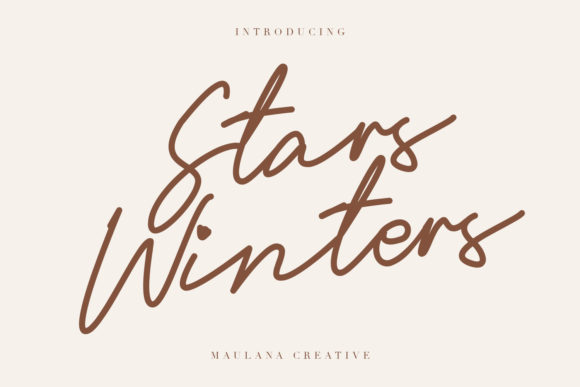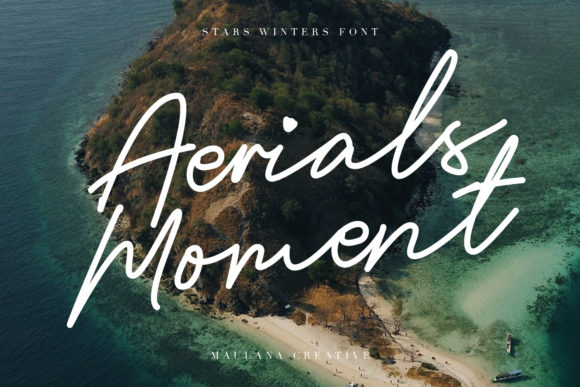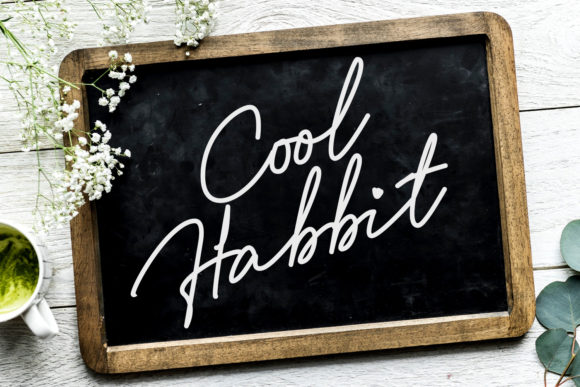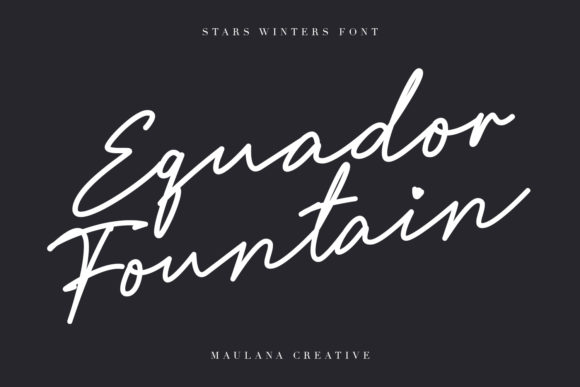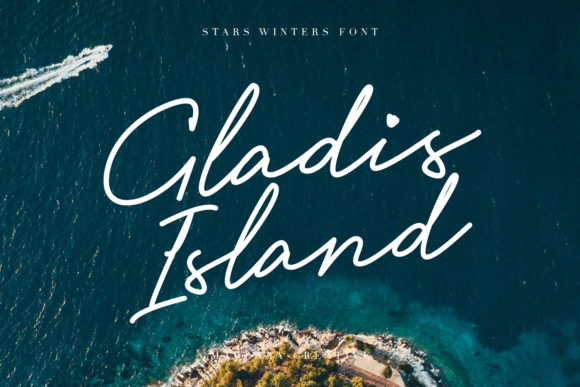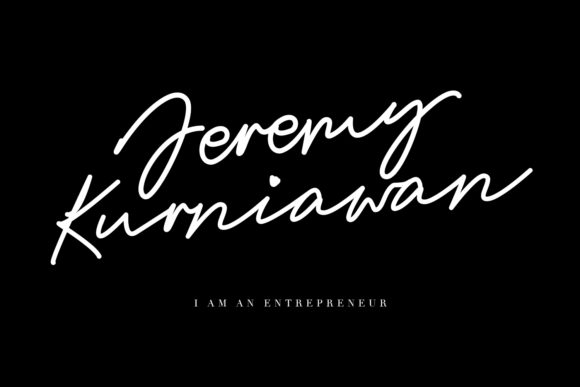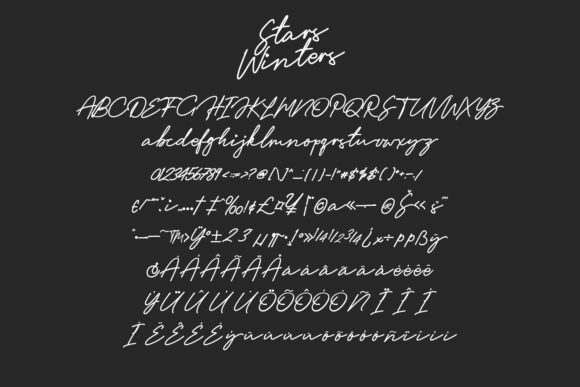
Stars Winters Font
About Stars Winters Font
Stars Winters is inspired by classic typography and brings its own unique style to any design project. This fantastic handwritten font is best suited for headlines of all sizes, as well as for blocks of text that have both maximum and minimum variations. Whether it’s for web, print, moving images or anything else – Stars Winter will look spectacular.